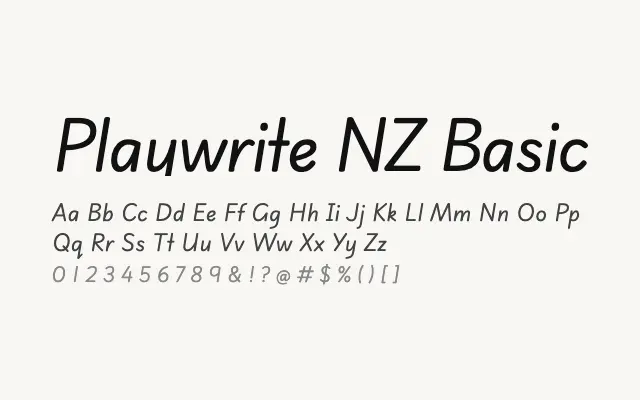
Playwrite NZ Basic
A simplified version of the New Zealand Playwrite script presenting more basic cursive letterforms suited to early handwriting stages.
Playwrite NZ Basic targets younger learners or beginners by stripping back complex joins and flourishes to focus on fundamental cursive letterform construction. This makes it particularly well suited to early-years educational resources and children's materials where clarity of form matters more than fluid elegance. Its four weights offer the same tonal range as the main NZ variant.
A simplified or foundational variant of the New Zealand Playwrite script, offering a more basic letterform set that may omit advanced joins or flourishes, intended to represent an earlier stage of cursive learning. Available in four weights.